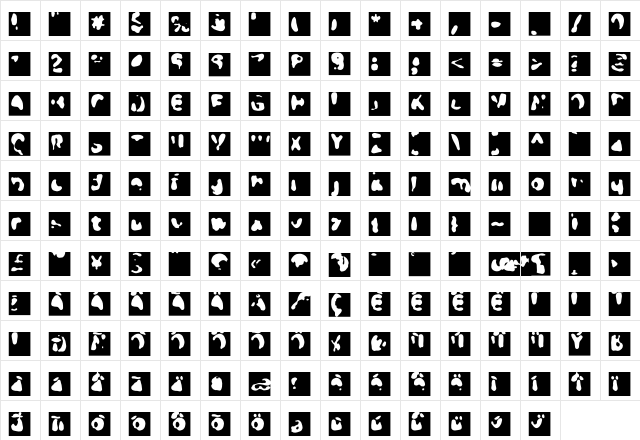
Crash Cameo
Style: Cameo
Crash Family
Crash Cameo
Design Context for Crash
Crash is a composed and adaptable typeface that performs quietly and consistently across a wide range of design contexts.